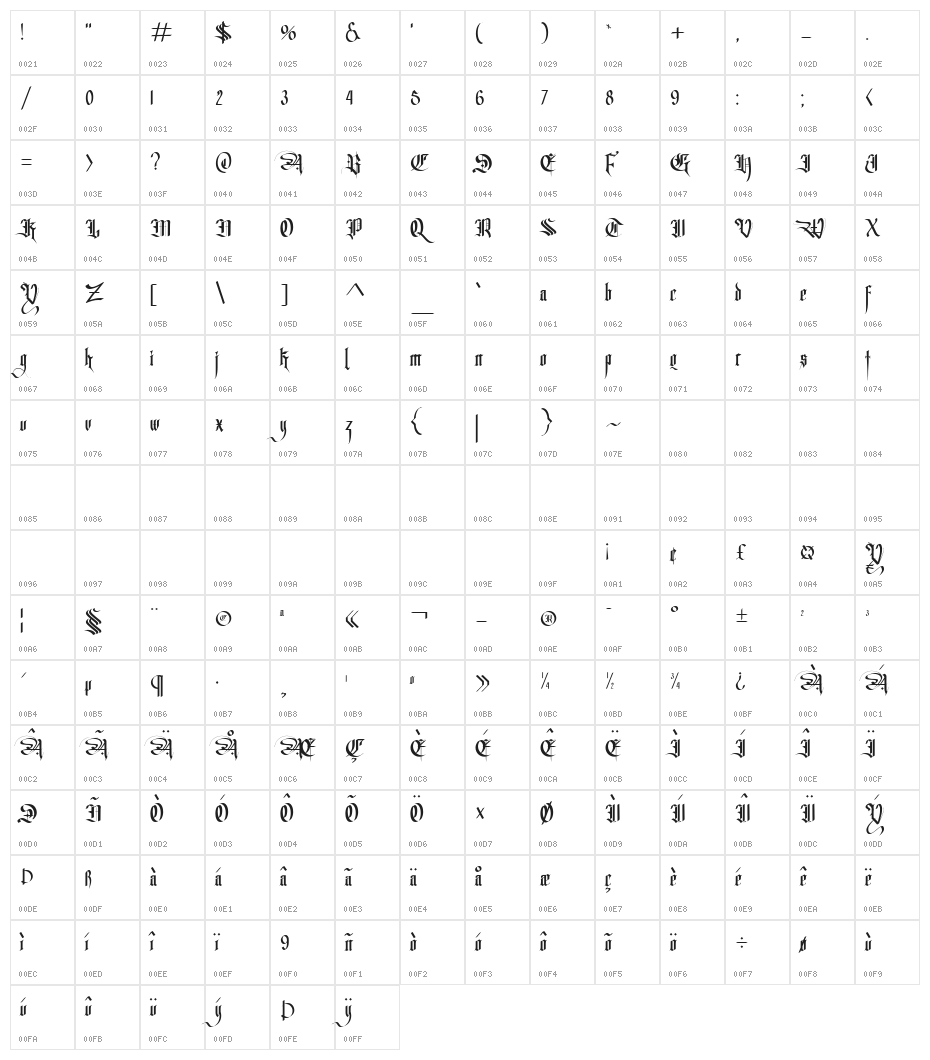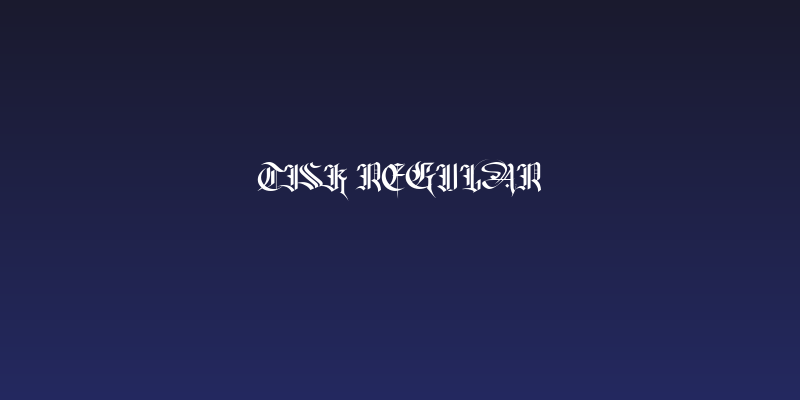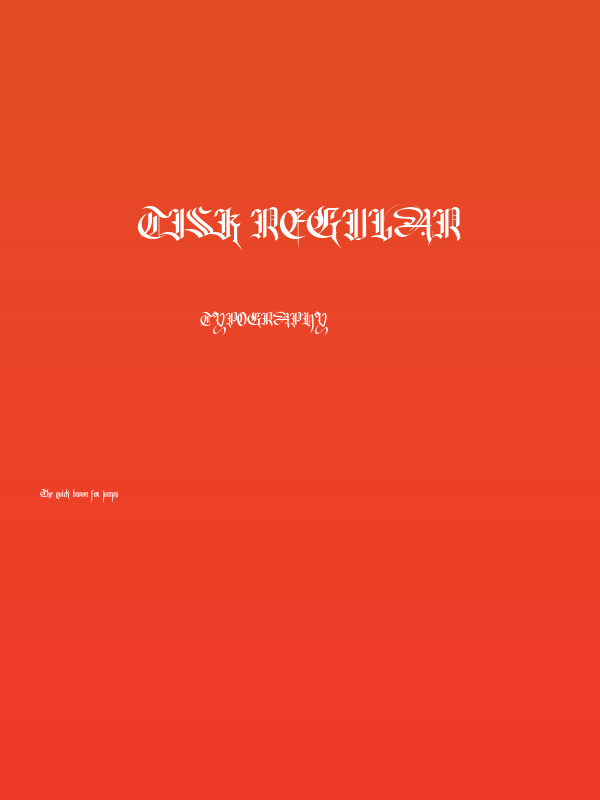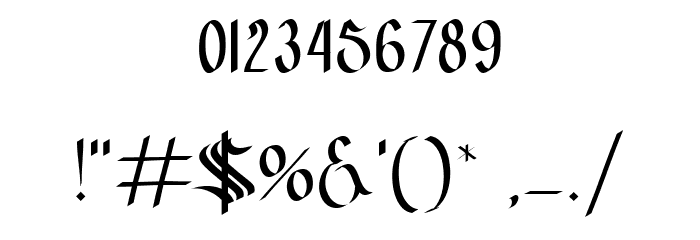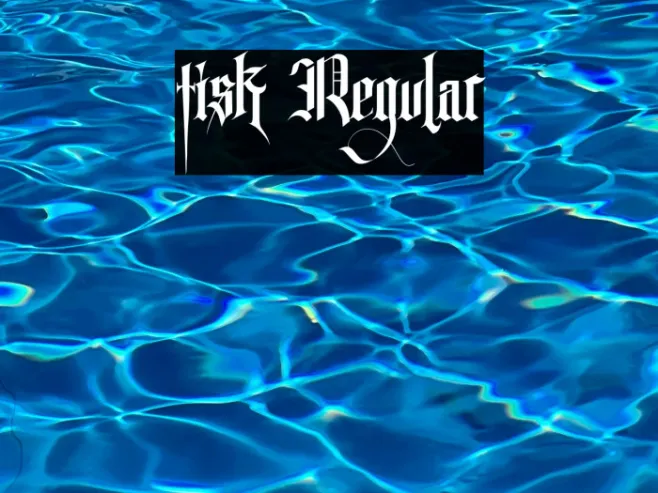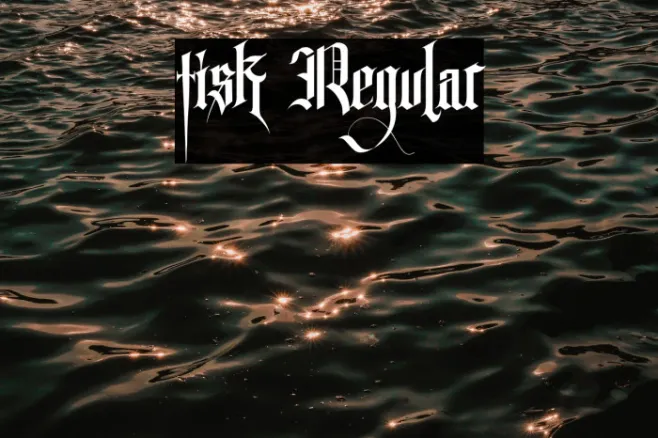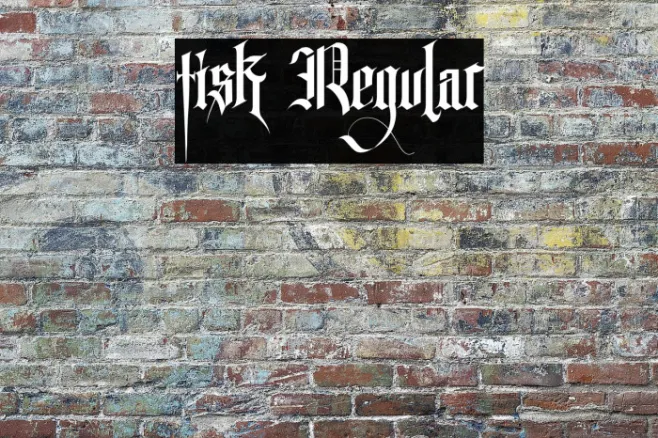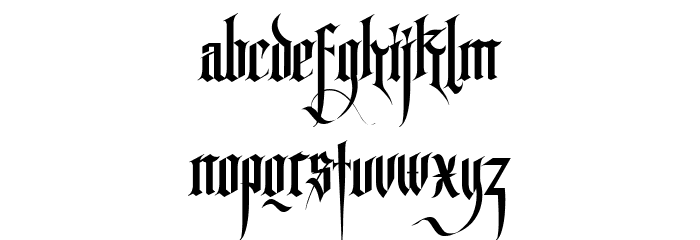
tisk Regular Font
tisk Regular Description
This font exhibits a striking blackletter style, characterized by its intricate and ornate letterforms. The uppercase letters are bold and dramatic, with sharp angles and elaborate flourishes that give a sense of historical elegance. The lowercase letters maintain the same level of detail, with a consistent flow and balance that complements the uppercase. Numbers and special characters are designed to match the overall aesthetic, featuring similar decorative elements. The font's high contrast in stroke thickness enhances its readability while maintaining its decorative appeal.
| Proposed Projects | Ideal for projects that require a historical or gothic touch, such as event posters, book covers, or branding for vintage-themed products. |